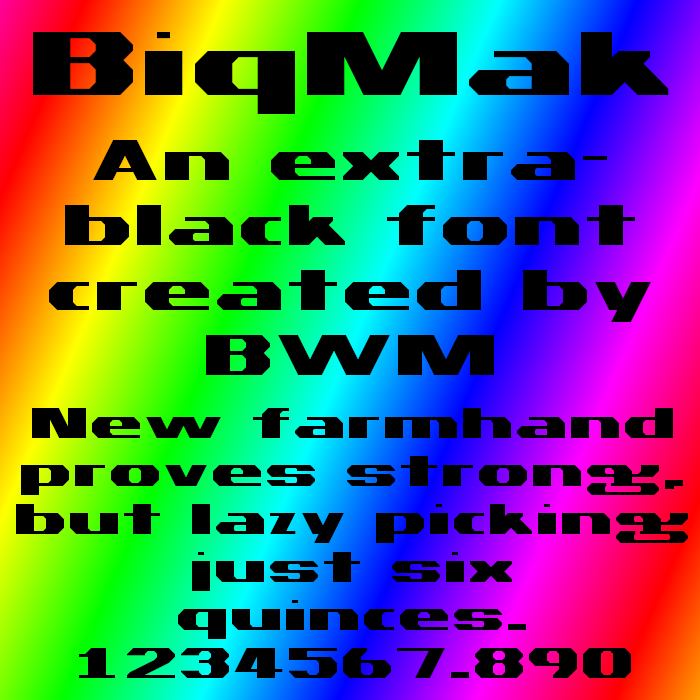
Current plans:
Extend character set
Add more weights
Before anyone asks: Yes, the dots on the i and j are that way for a reason as I am also using it as a diacritic as well.
I know, some letters are wider than the em square, like g, M, or W